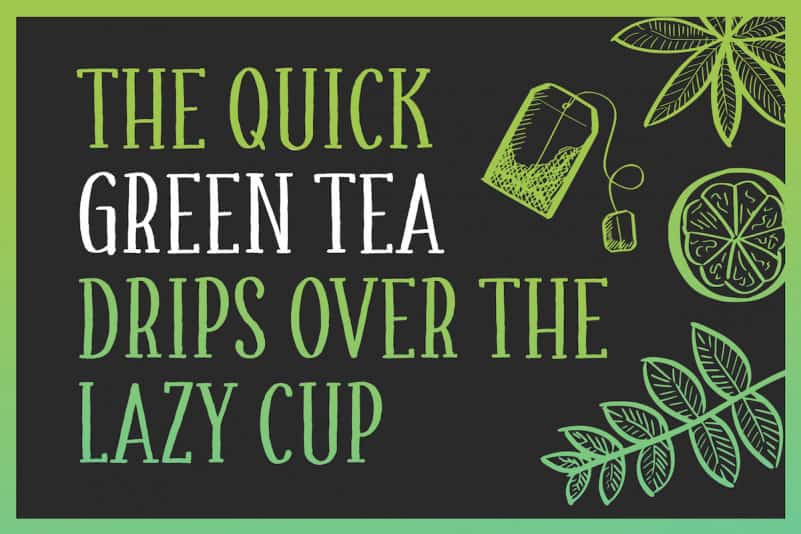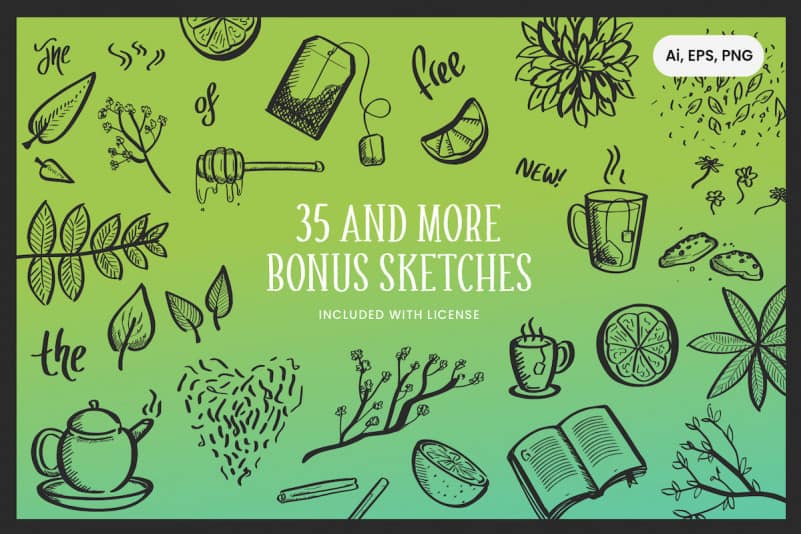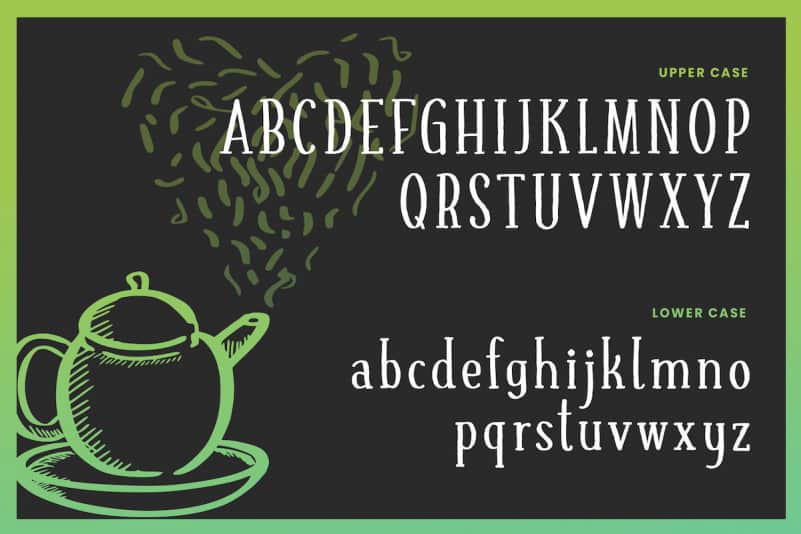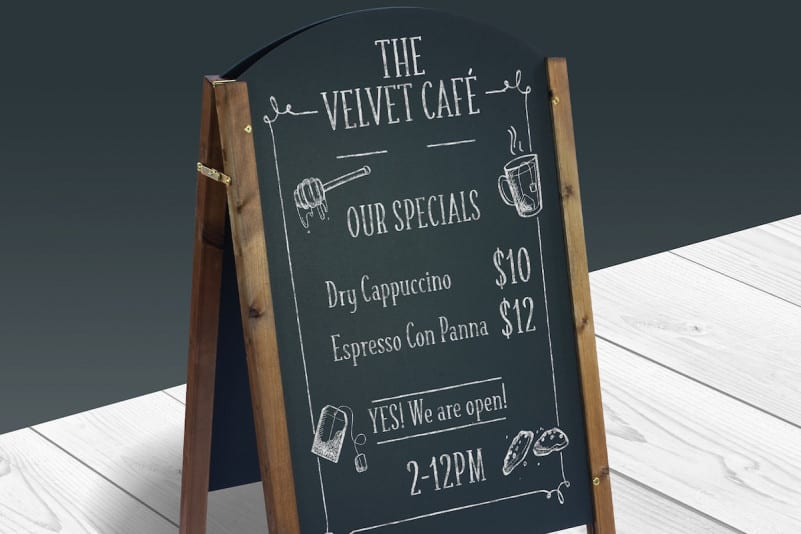
Fresh Tea – A fancy handwritten font
With “Fresh Tea” we are not only releasing a modern but elegant serif handwritten font but also a set of some biological tea themed sketches. It’s included with every purchase of the font and available in a big variety of file formats. Try out the demo for FREE! You can also use the demo for personal, non-commercial projects for free.
The font both works in upper and lower case, making it a true multi-purpose typeface which can be used for packaging, posters or logos. Get the full version including special characters, numbers and all the sketches here: https://shapedfonts.com/project/freshtea/